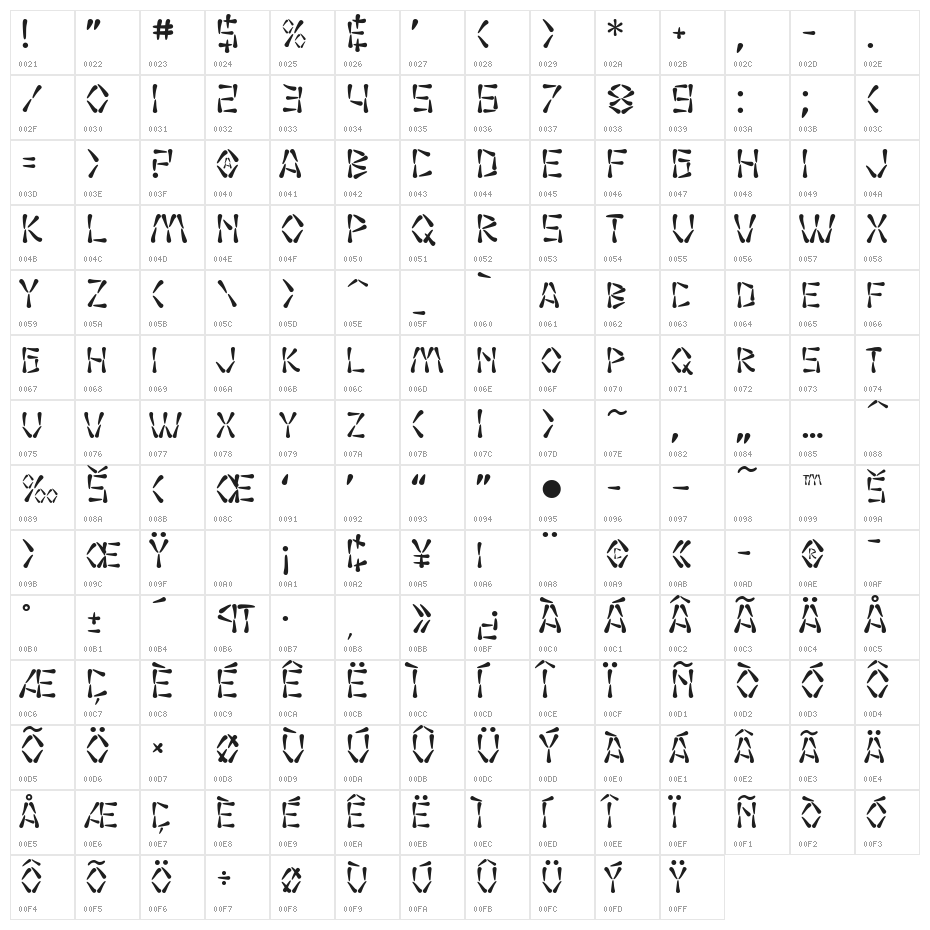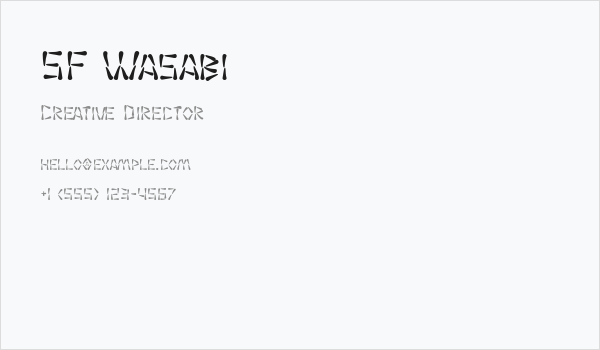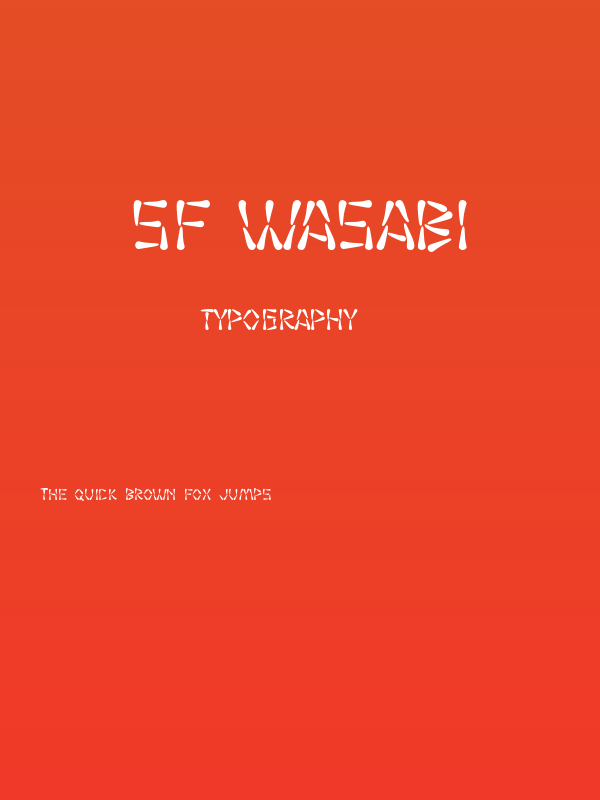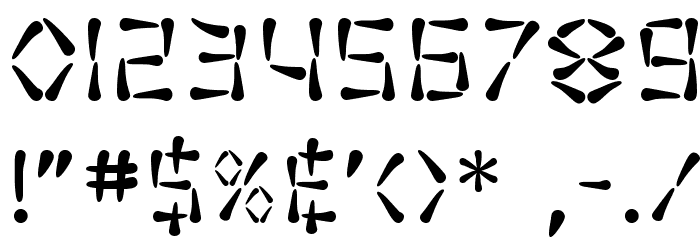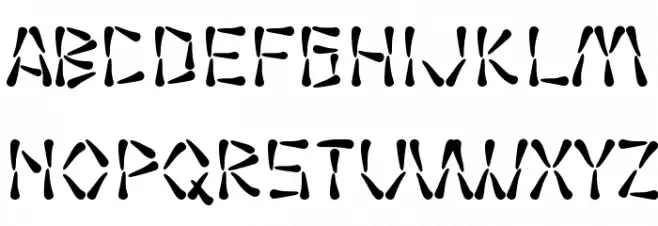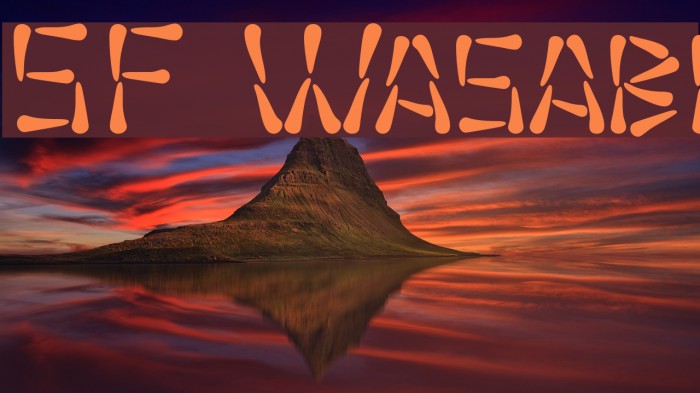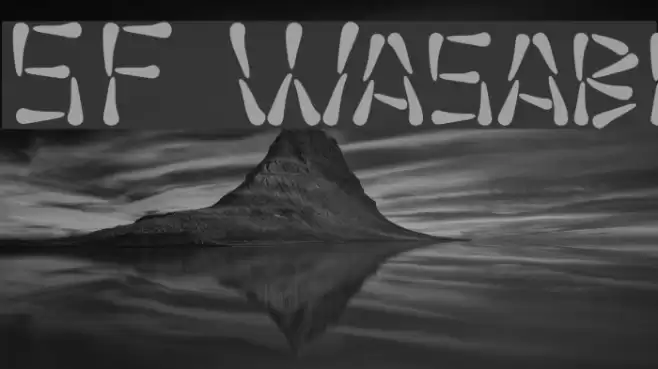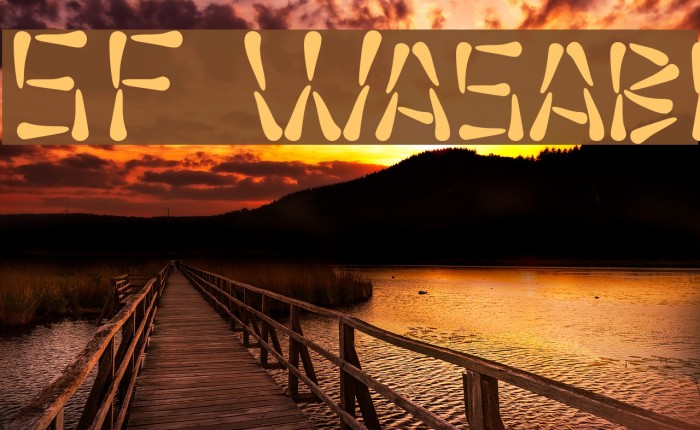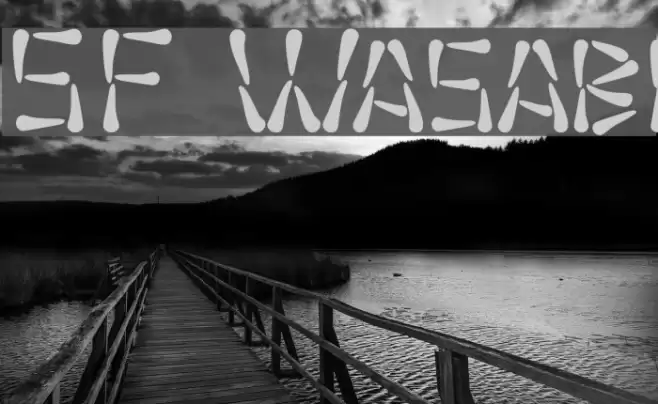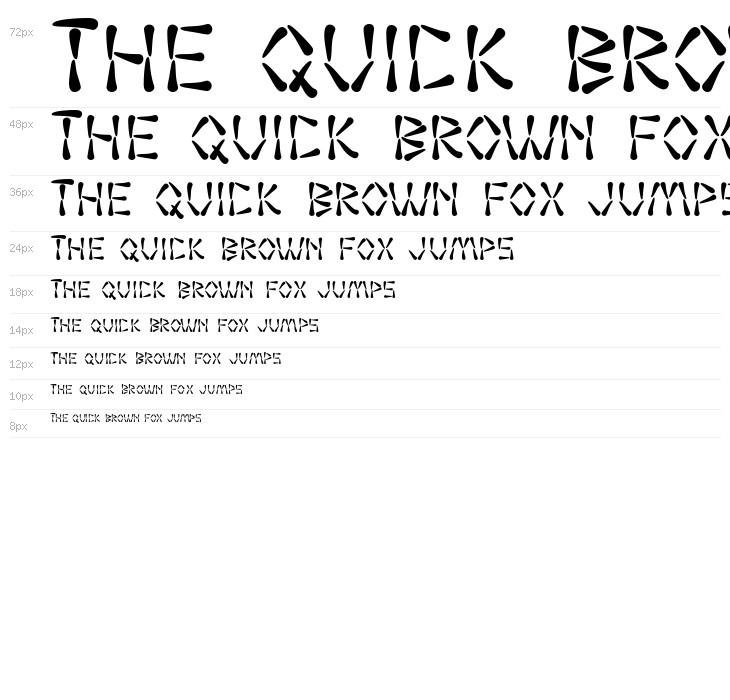
SF Wasabi Font
| Stil general | Playful, Artistic |
| Proiecte propuse | Ideal for children's books, playful branding, artistic posters, and creative designs. |